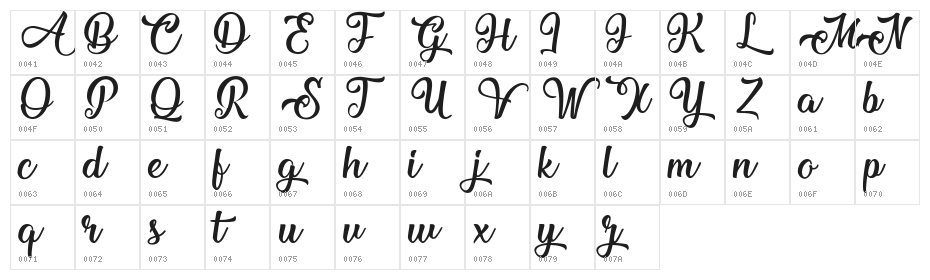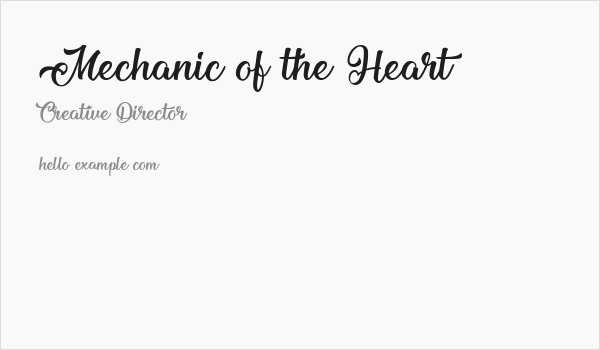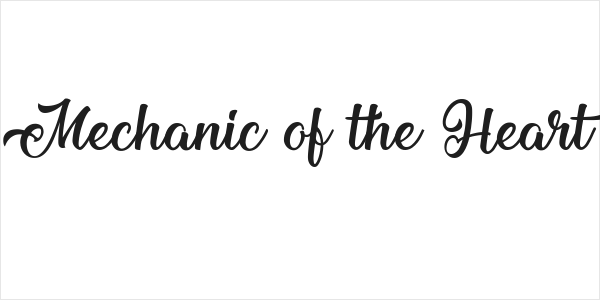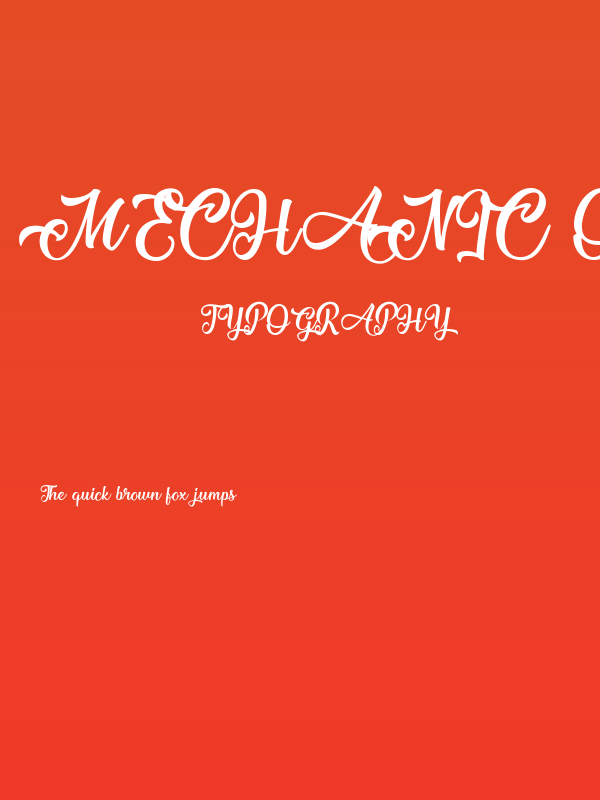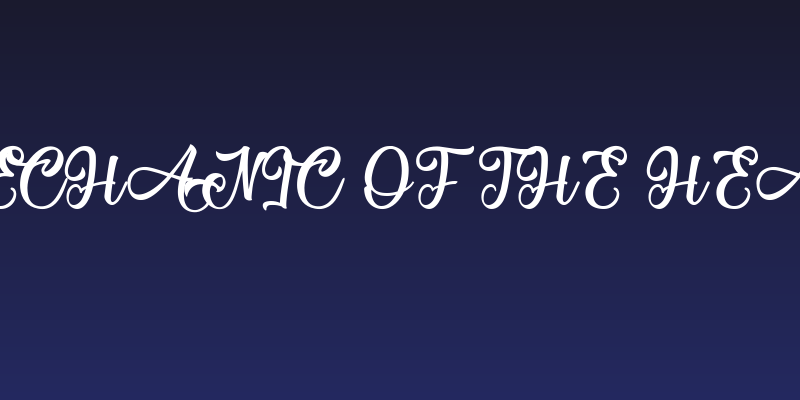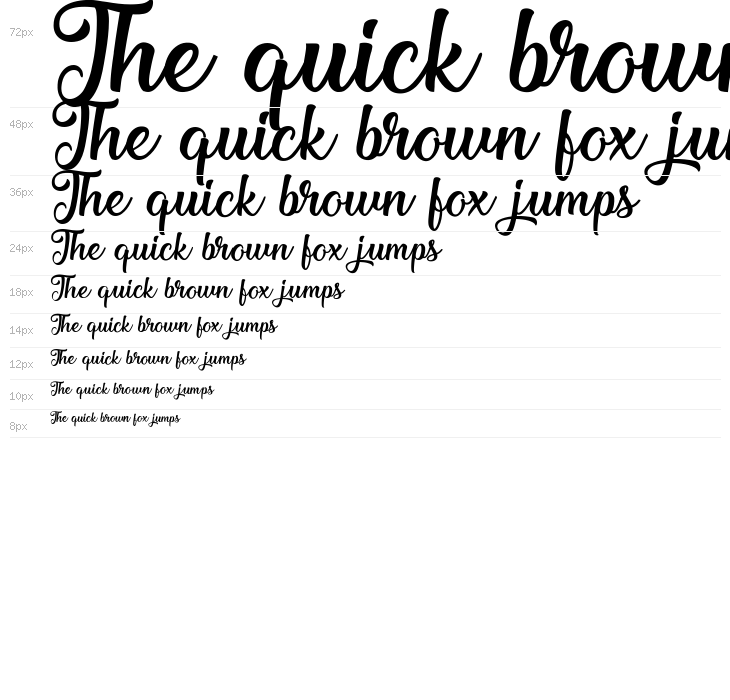
Mechanic of the Heart Font
Mechanic of the Heart Description
This font features an elegant and flowing script style, characterized by its intricate loops and swirls. The uppercase letters are particularly ornate, with decorative flourishes that extend beyond the baseline and cap height, giving it a sophisticated and romantic appearance. The lowercase letters maintain a consistent flow, with smooth connections between characters, enhancing readability despite the decorative nature. The font's overall aesthetic is reminiscent of classic calligraphy, making it suitable for formal and artistic applications. The bold strokes and high contrast between thick and thin lines add to its dramatic and eye-catching presence.
| Proposed Projects | Wedding invitations, luxury branding, greeting cards, and elegant packaging design. |